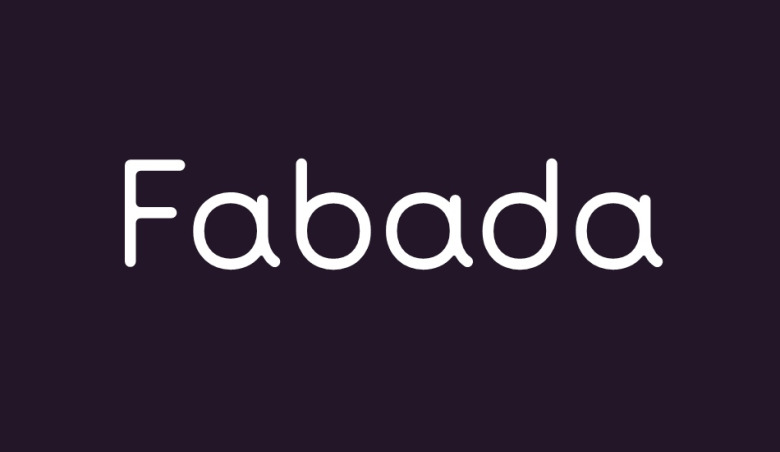
Fabada Font
Fabada is a high quality Sans Serif font that is designed by deFharo and is available for free download personal & commercial use. The free version provides all uppercase and lowercase letters and a few special characters too.
Fabada Sans Serif Font